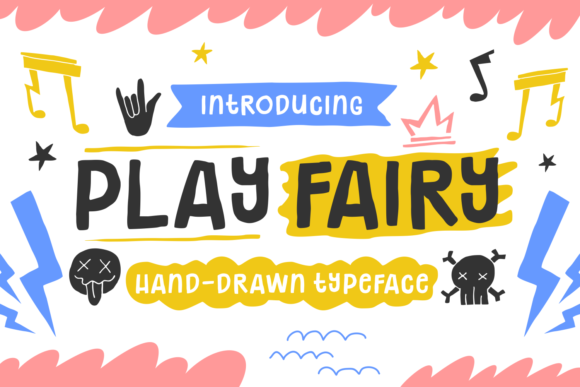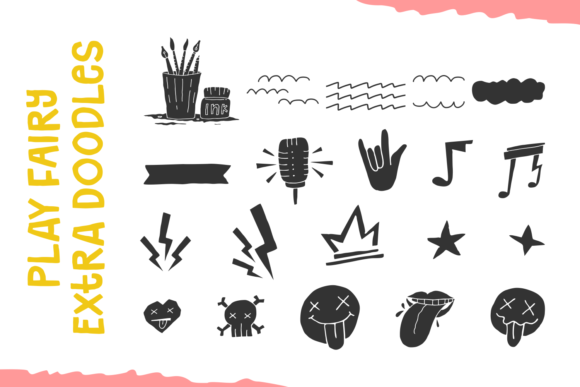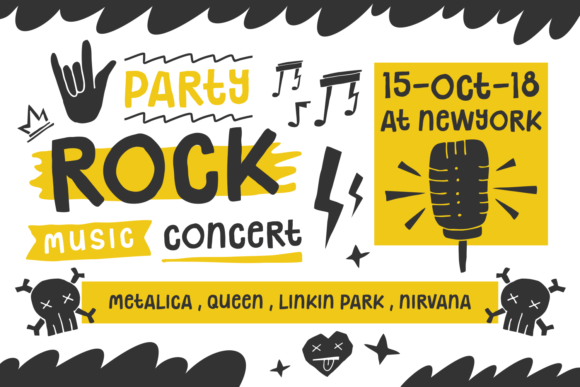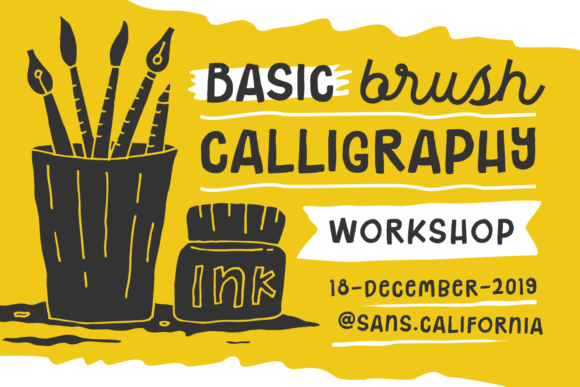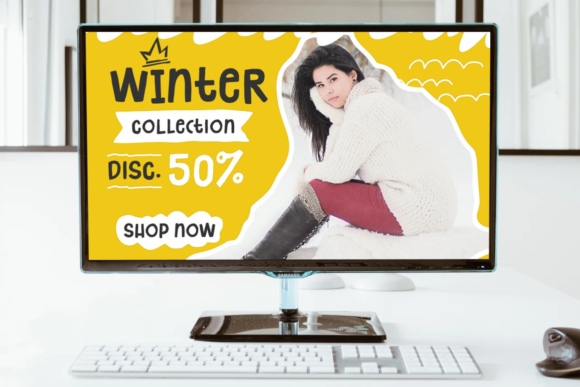
Play Fairy Font
About Play Fairy Font
The Play Fairy is a fun hand-drawn typeface. It will give your designs a playful feel while maintaining its way to bring the message.
The Play Fairy comes with several fun rock illustrations.